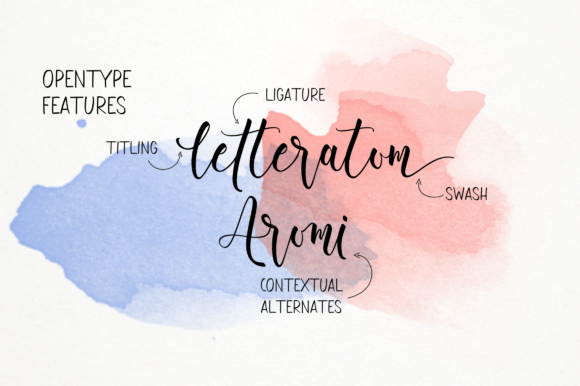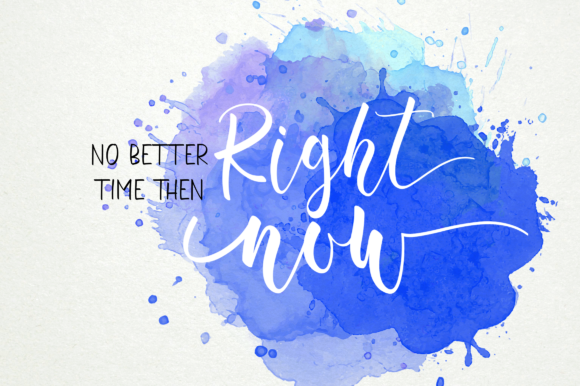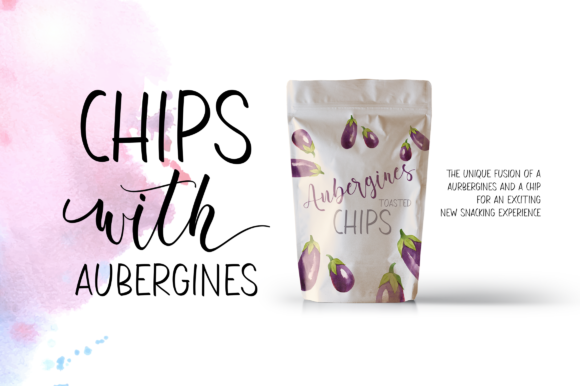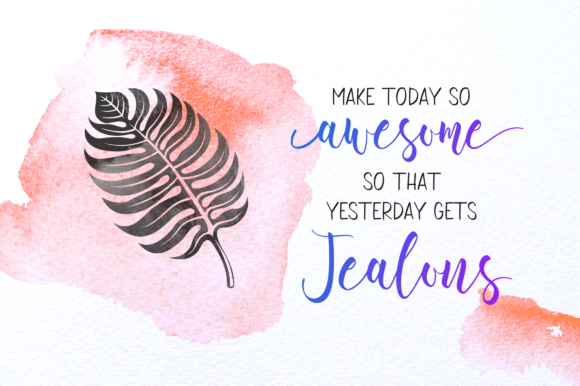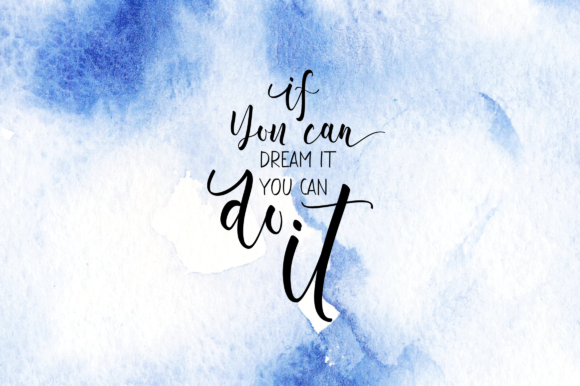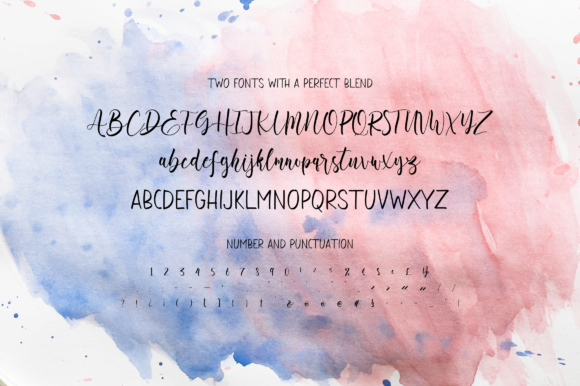
Aromi Font: Elevate Your Designs with a Modern and Cool Script Font
Are you tired of using the same old fonts in your design projects? Do you want to add a touch of elegance and sophistication to your creations? Look no further than Aromi Font, a modern and cool script font that is sure to make your designs stand out. With its amazing swashes and sleek lines, Aromi Font is the perfect choice for designers and crafters looking to take their work to the next level.
What is Aromi Font?
Aromi Font is a modern script font that is designed to add a touch of style and sophistication to any design project. Its sleek lines, beautiful swashes, and elegant lettering make it perfect for a wide range of applications, from branding and advertising to packaging and web design.
One of the standout features of Aromi Font is its amazing swashes. These decorative flourishes add a touch of elegance and whimsy to any design, making it perfect for designers who want to create unique and eye-catching work. Whether you’re designing a logo, a brochure, or a website, Aromi Font’s swashes are sure to make your design stand out.
Why Use Aromi Font?
So why should you use Aromi Font in your design projects? Here are just a few reasons:
- Modern and Cool Design: Aromi Font has a modern and cool design that is sure to appeal to designers and crafters who want to create fresh and contemporary work.
- Elegant Lettering: Aromi Font features elegant lettering that is perfect for creating sophisticated and high-end designs.
- Amazing Swashes: The swashes in Aromi Font are truly amazing, adding a touch of elegance and whimsy to any design.
- Versatile: Aromi Font is versatile and can be used in a wide range of applications, from branding and advertising to packaging and web design.
How to Use Aromi Font
Using Aromi Font in your design projects is easy. Here are a few tips to get you started:
- Pair it with Other Fonts: Aromi Font pairs well with other fonts, so don’t be afraid to experiment with different combinations.
- Use it for Headlines: Aromi Font is perfect for headlines and titles, where its elegant lettering and swashes can really shine.
- Add Swashes: Don’t be afraid to add swashes to your design to give it a touch of elegance and whimsy.
Who is Aromi Font for?
Aromi Font is perfect for designers and crafters who want to create unique and eye-catching work. Here are a few examples of who might benefit from using Aromi Font:
- Graphic Designers: Graphic designers who want to create fresh and contemporary designs will love Aromi Font.
- Branding Experts: Branding experts who want to create elegant and sophisticated brands will appreciate Aromi Font’s modern and cool design.
- Crafters: Crafters who want to add a touch of elegance and whimsy to their work will love Aromi Font’s amazing swashes.
In conclusion, Aromi Font is a modern and cool script font that is sure to elevate your design projects. With its amazing swashes, elegant lettering, and versatile design, Aromi Font is perfect for designers and crafters who want to create unique and eye-catching work. So why not give Aromi Font a try today and see the difference it can make in your designs?
Use Aromi Font to turn any design project into a standout!